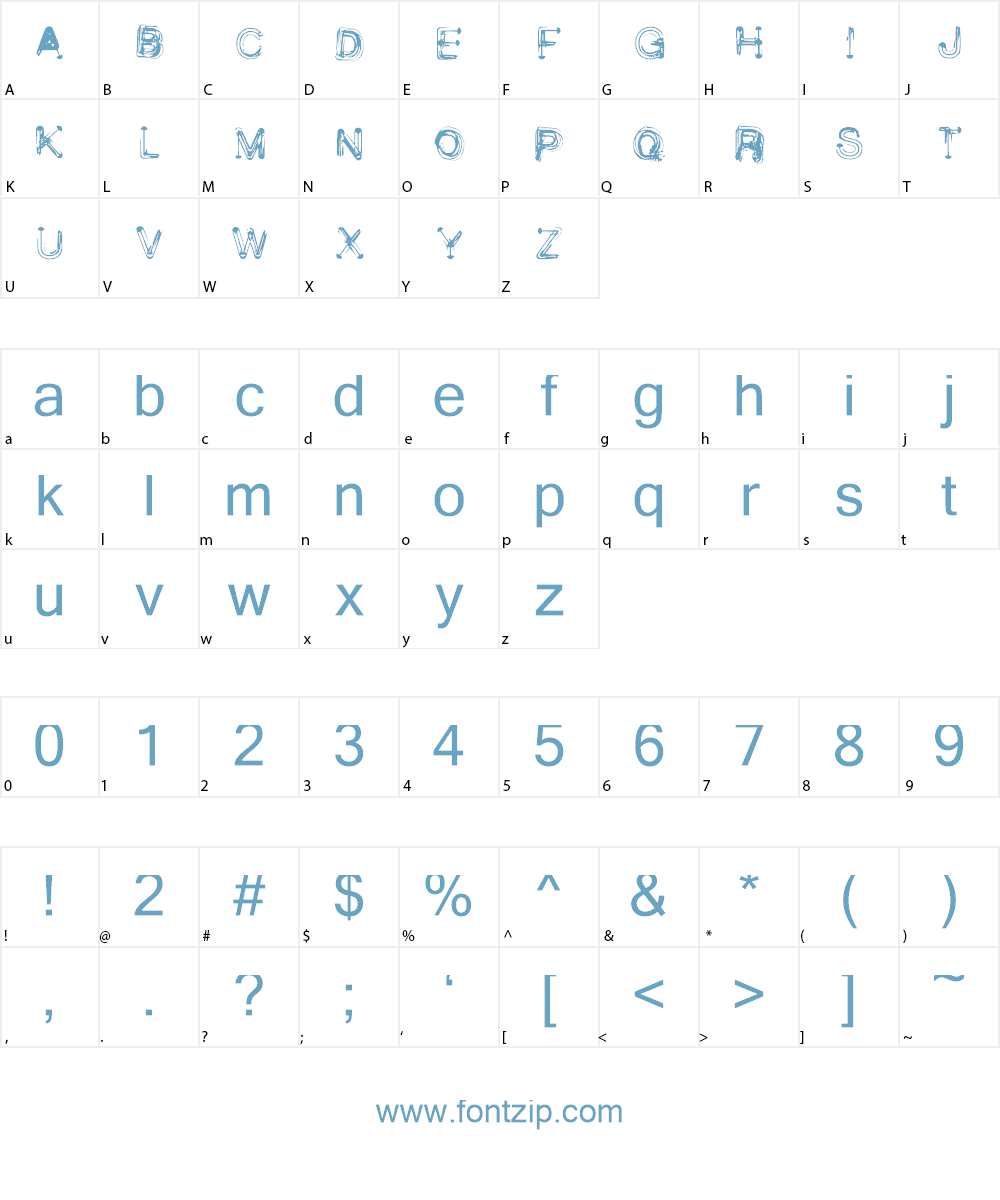
Looking for a messy, fun and paint brush inspired fun. Want to make a splash but without the fuss or sticky paint, well here is Wet Brush. A brush style font based on street-art and urban advertising, you know all those 'beware wet paint' signs you see. Well now you can do it without the need of a real brush. You're welcome.